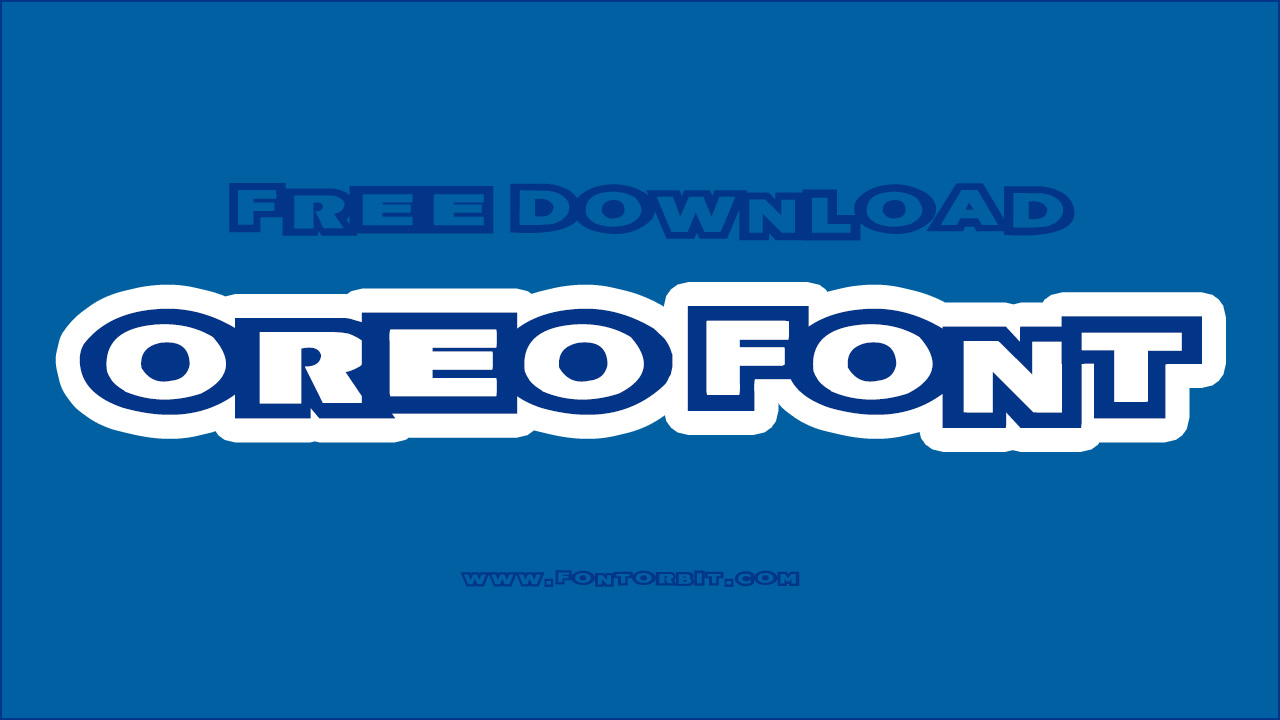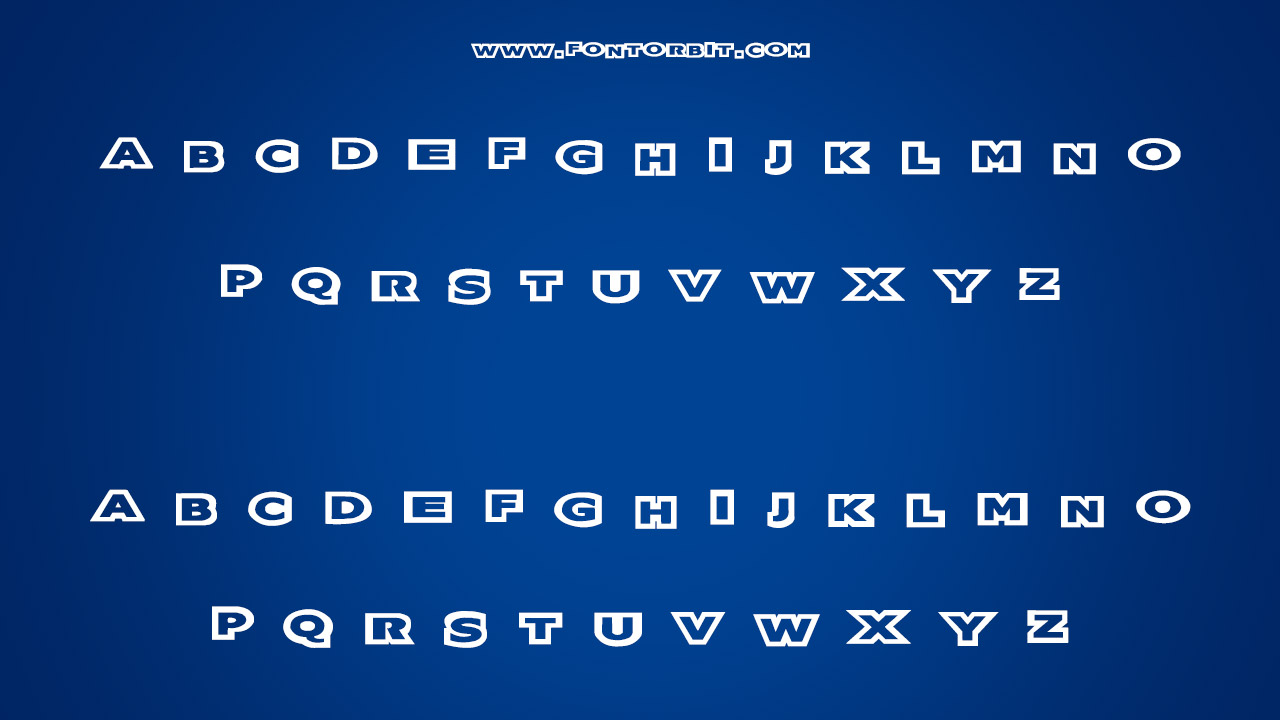
Oreo Font is a distinctive typeface inspired by the Oreo cookie logo. Designed by Dennis Ludlow and published by Sharkshock, it reflects the iconic snack brand’s geometric and stylish design.
Types in the Oreo Font Family
a. Oreo Regular
The Oreo Font is perfect for creating eye-catching branding materials, food-related designs, and promotional content. It adds a stylish touch to packaging, invitations, and advertisements, making it versatile for a variety of creative projects.
The Oreo Font, designed by Dennis Ludlow and offered by Sharkshock, captures the playful and geometric style of the iconic Oreo logo. Free for personal use, this versatile typeface is ideal for branding, packaging, and promotional materials, adding a distinctive and stylish touch to various design projects. I
3.What Are The Key Features Of The Oreo Font?
It includes uppercase and lowercase letters, numbers, symbols, and icons, with a geometric and outlined style.